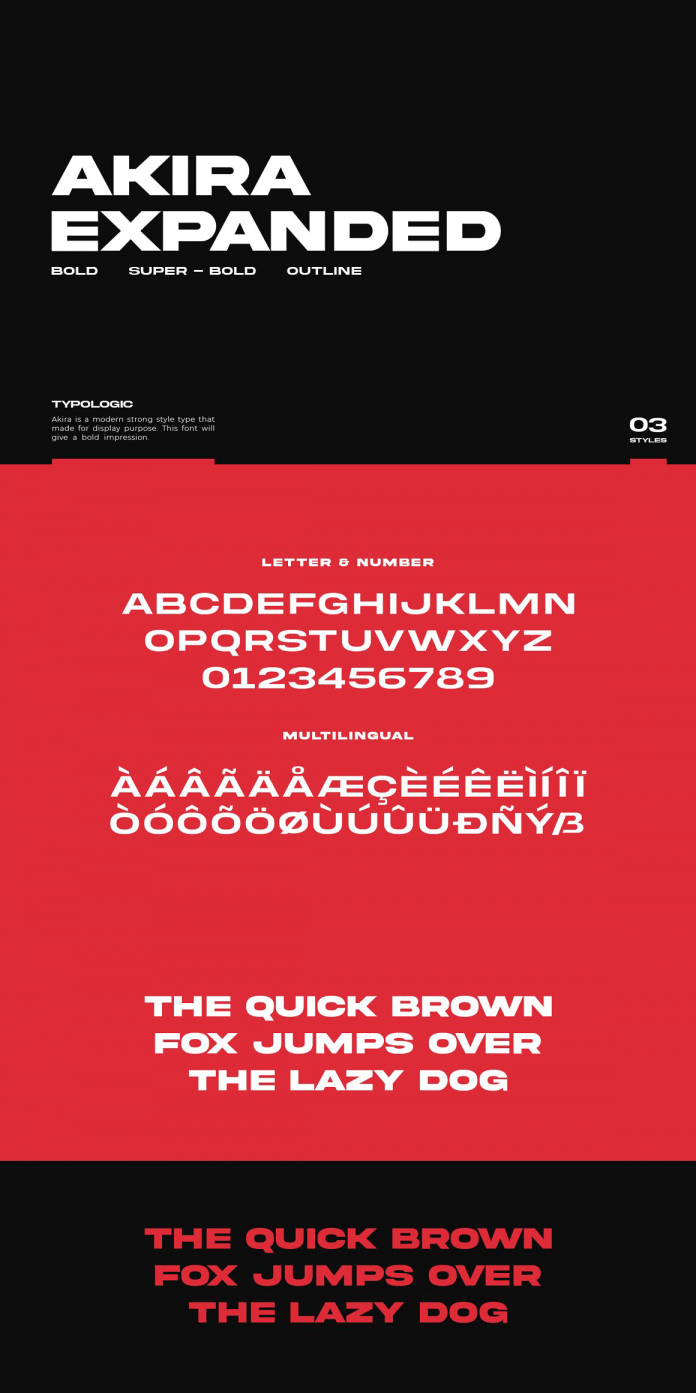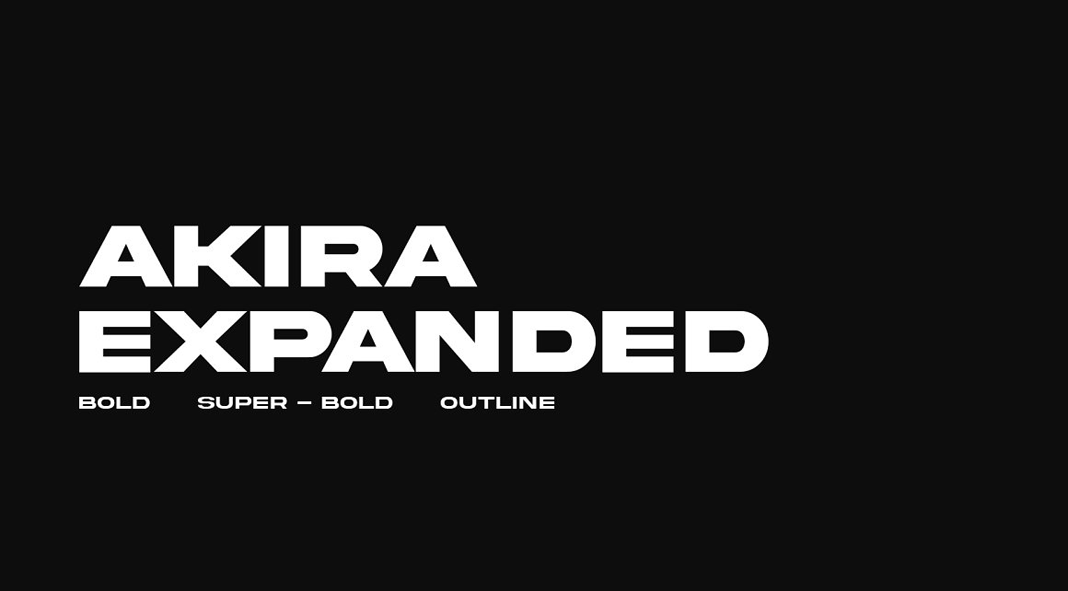
Akira, an expanded all-caps font made for display purposes.
Designed and published by typologic, Akira is a new display font that comes in three styles Akira Expanded Outline, Akira Expanded, and Akira Expanded Bold. This all-caps display font brings a modern and strong look to your design. With its bold, expanded style, it is well suited for striking headlines. The font also includes a range of alternative glyphs that make it easy for you to customize your typographic work. Just click on the following link or have a look at the images below to learn more about this beautiful display font.